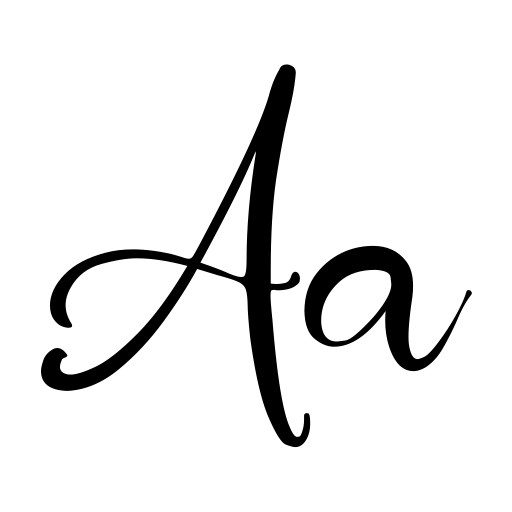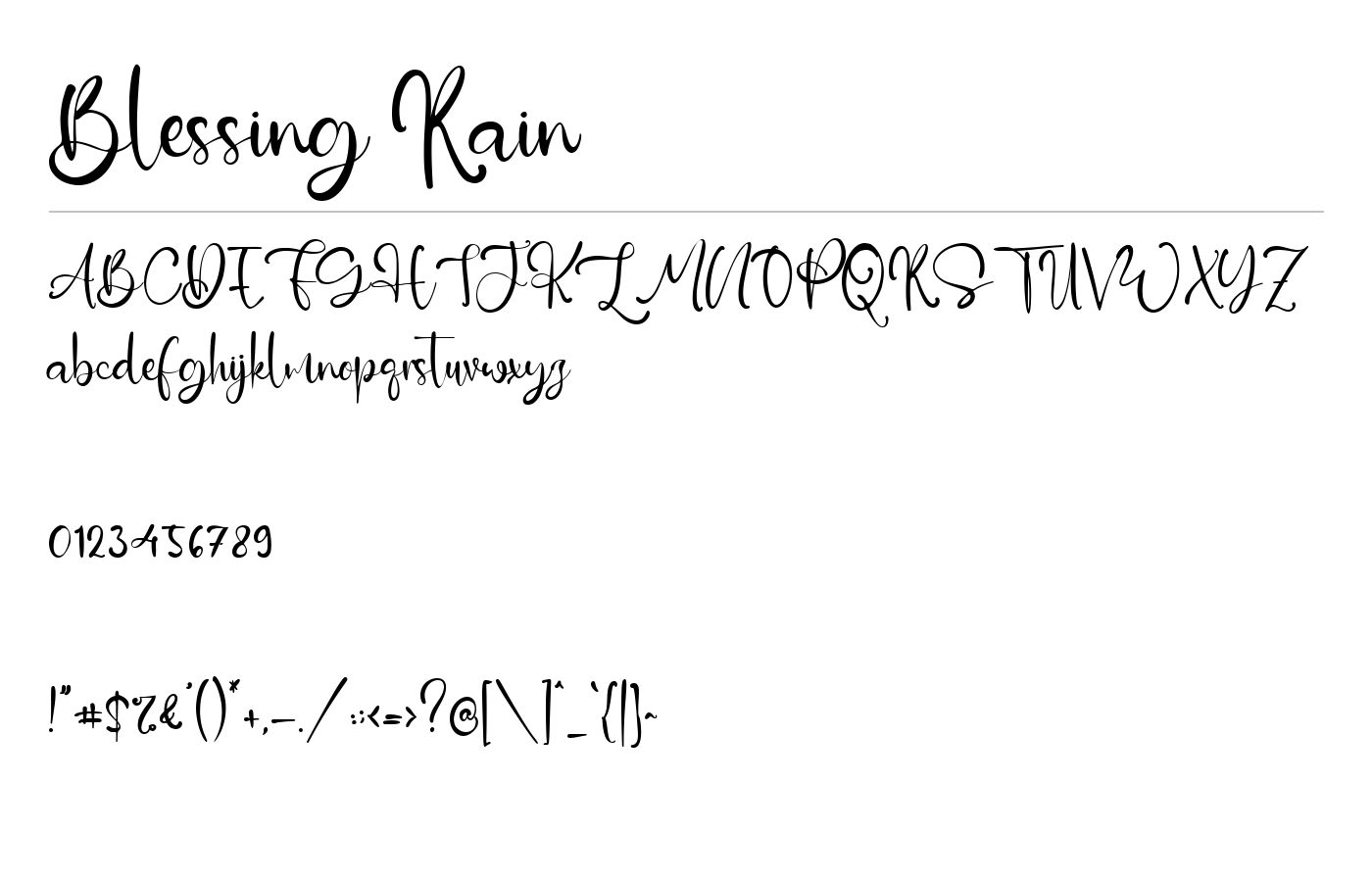
Blessing Rain is a playful and elegant script font with a casual, handwritten feel. Its smooth, flowing strokes and whimsical letterforms create a friendly yet refined look, making it perfect for creative branding, invitations, and personal projects where a touch of charm and personality is desired. This font works well in headlines and decorative text, bringing a warm, inviting style to fashion, lifestyle, and artistic designs.
Blessing Rain Font
About Blessing Rain Font
| Font family | Blessing Rain Font |
| Designer | VZtype |